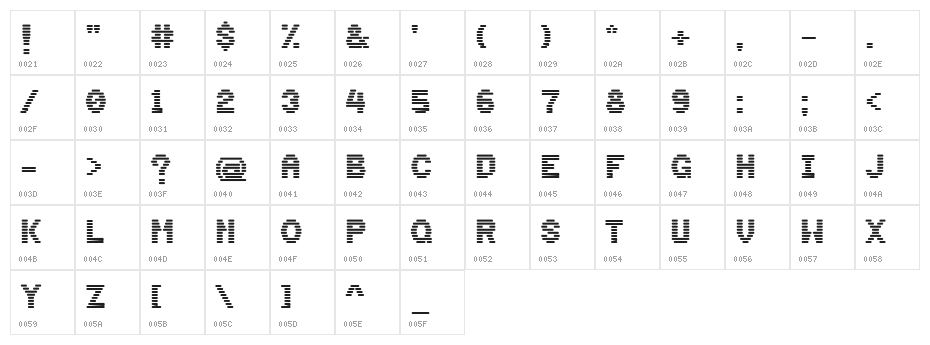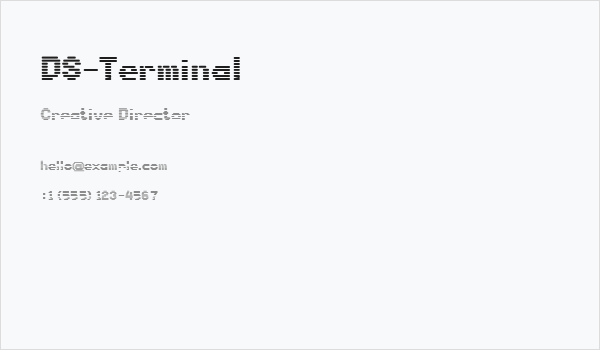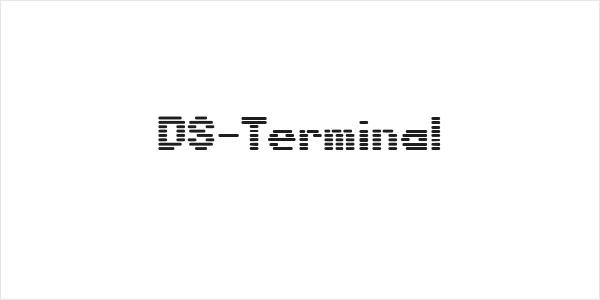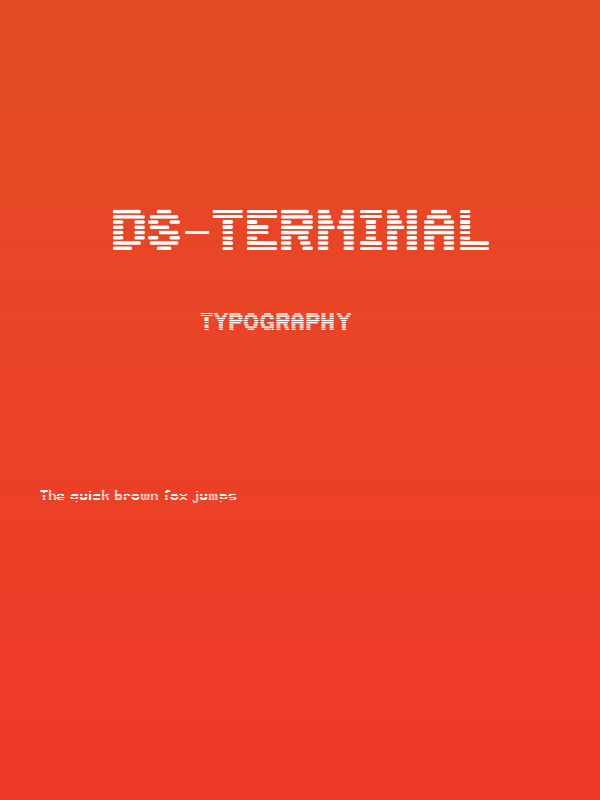
DS-Terminal Font
DS-Terminal Description
This font features a unique, futuristic design composed of horizontal lines that form each character. The style is reminiscent of digital or electronic displays, giving it a modern and tech-inspired appearance. Each letter and number is constructed with a series of evenly spaced horizontal segments, creating a sense of movement and rhythm. The font maintains a consistent structure across uppercase, lowercase, and numerical characters, ensuring readability while maintaining its distinct aesthetic. Special characters are also designed in the same segmented style, providing a cohesive look throughout.
Proposed ProjectsIdeal for technology-themed projects, digital art, sci-fi posters, and modern branding.